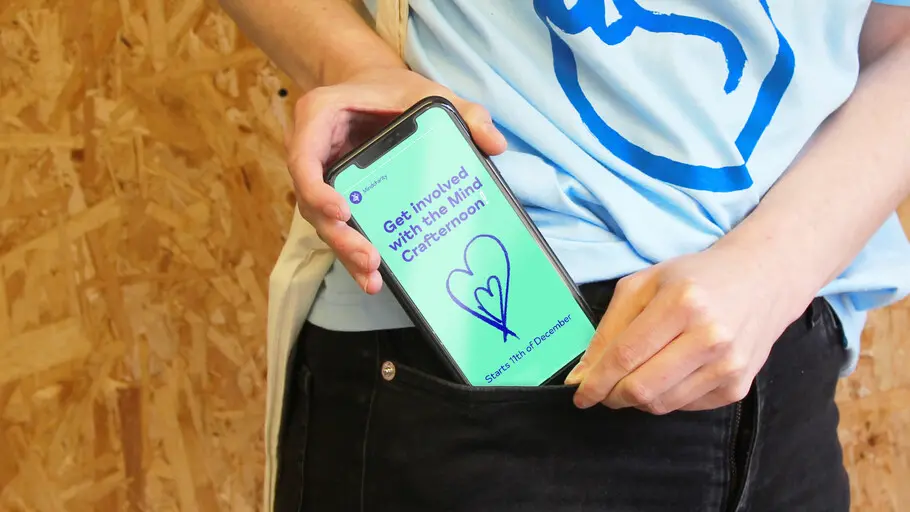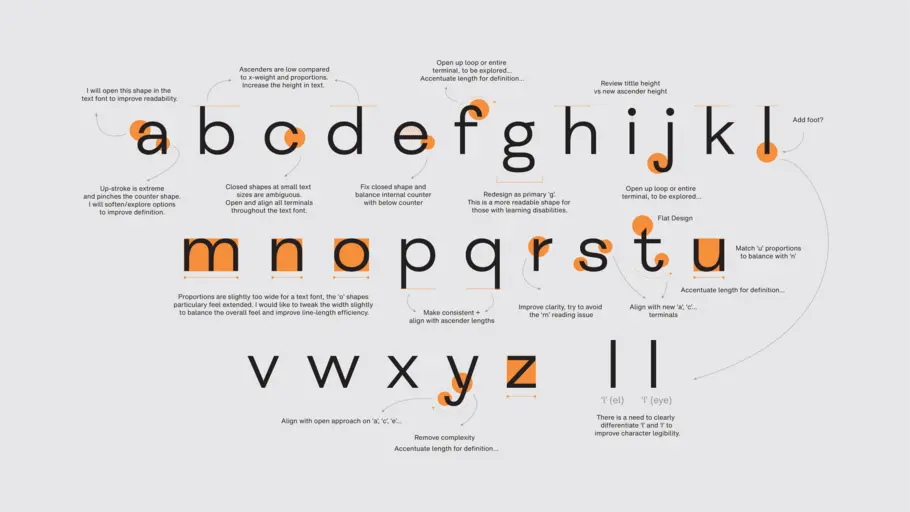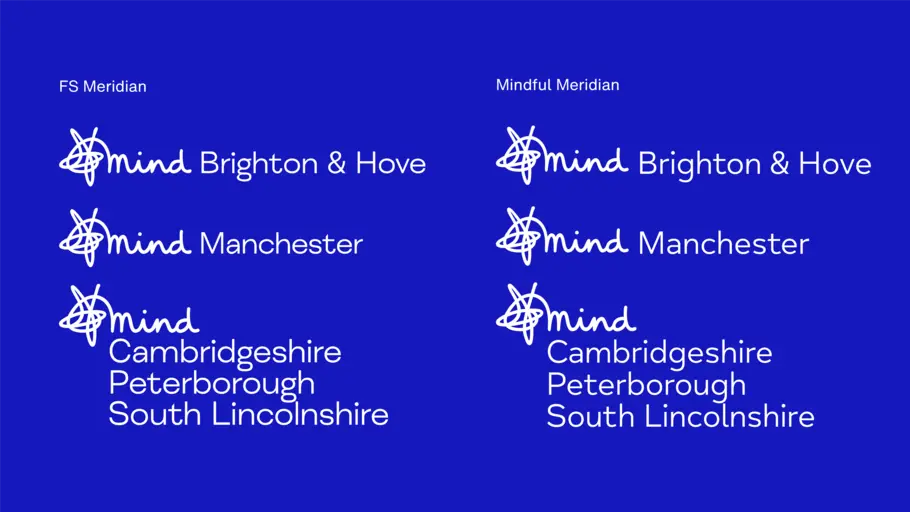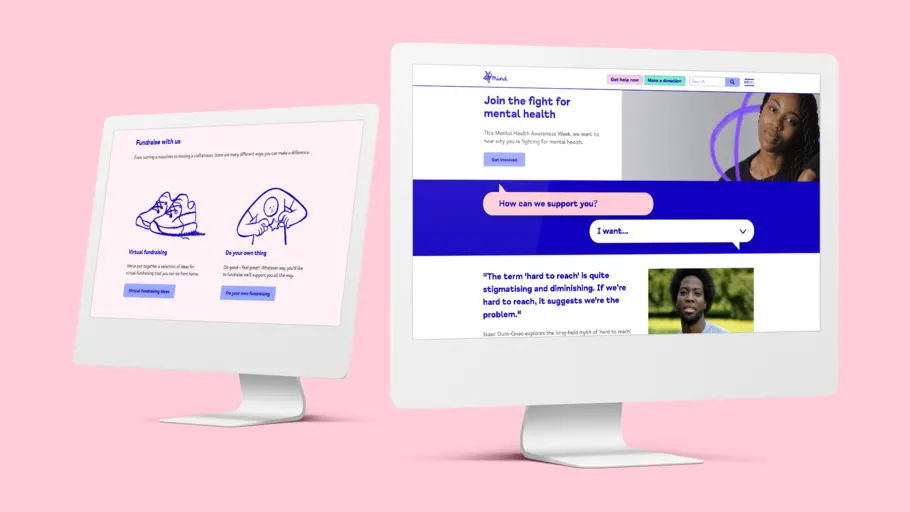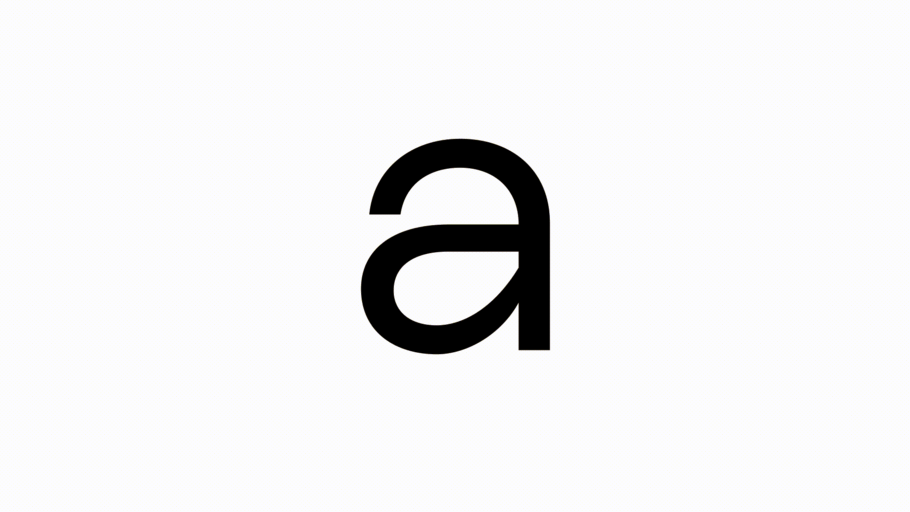
Mind Meridian
A new typeface brings digital clarity to Mind’s mental health mission
After years of campaigning to improve awareness and understanding around mental health, the time had come for charity Mind to update its iconic visual identity. In partnership with agency DesignStudio, Monotype Studio developed Mind Meridian – a modified typeface which puts warmth and accessibility at the heart of the brand.
Background.
After years of campaigning to improve awareness and understanding around mental health, the time had come for charity Mind to update its iconic visual identity. The ‘squiggle’ logo is widely recognised in England and Wales, but social media and other digital spaces were creating new demands on the organisation. In partnership with agency DesignStudio, Monotype Studio developed Mind Meridian – a modified typeface which puts warmth and accessibility at the heart of the brand.
Brief.
The organisation, which is the largest mental health charity in the UK, was previously using several different fonts – acquired over a number of years and in varying styles – which were now facing new accessibility demands. Making the brand more accessible to the diverse audience Mind serves was a huge part of the brief for the new typeface and design system, which also needed to be easy for volunteers and local Mind organisations to work with, regardless of whether they had design experience or not.
As with many other brands, much of Mind’s interaction now takes place online, making the digital realm absolutely essential for reaching the organisation’s audience. A key focus was updating Mind’s typographic palette to communicate clearly across these platforms, so the organisation could speak effortlessly through type. It also needed to build on the brand equity of Mind’s squiggle logo, which has always been a much-loved part of the brand.
Solution.
The organisation’s new typeface was designed to harmonise with this refreshed branding, retaining the vitality of the Mind squiggle while answering the functional needs of the organisation – in particular the accessibility requirements. Mind Meridian is legible for those with visual impairments, and has been tailored to sit comfortably alongside the local, handwritten executions of the organisation’s logo.
FS Meridian was the starting point for the design. Together with DesignStudio, the Studio team analysed its letter shapes and spacing, creating subtle changes such as narrowing proportions, opening character spacing, increasing ascenders and accentuating terminals — all to improve the “breathability” and readability of the typeface. These updates drew on extensive accessibility research already carried out by Monotype for brands including ING, RNIB and Mencap.
Result.
Aside from increased accessibility, Mind Meridian reflects a growing need for brands and organisations to adopt a more human approach to design. “Lots of companies have started to understand that they need to communicate in the most honest, authentic way possible,” explains Garnham. “It’s not about selling a product or service, it’s about being real. And in the past year we’ve definitely seen that trend.
Mind Meridian embraces where Mind is today, and allows the brand to flex its tone for the future, so the organisation can continue to fight for mental health without losing any of its much loved and trusted brand equity from the past.